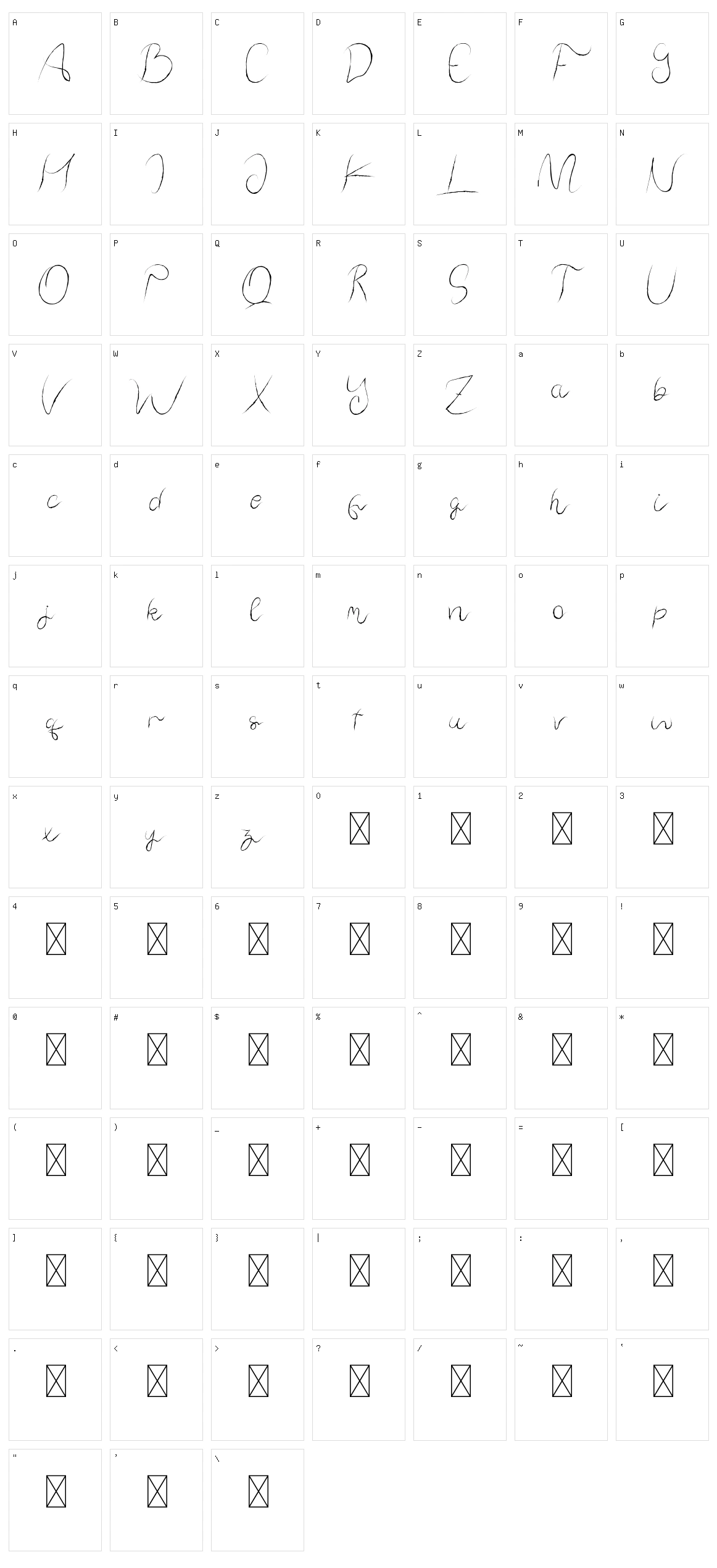
The free font Wolven Shevana is carefully designed by Edric Studio, showcasing a thoughtful balance of creativity and usability and falls under the Script font style. When you download the ZIP file, it contains only 37.28 KB of font files, making it lightweight and quick to download. Please review the license details below to understand permitted usage and distribution rights. If license information is not available, we recommend using this font for personal projects only or contacting the author directly for commercial usage permissions.